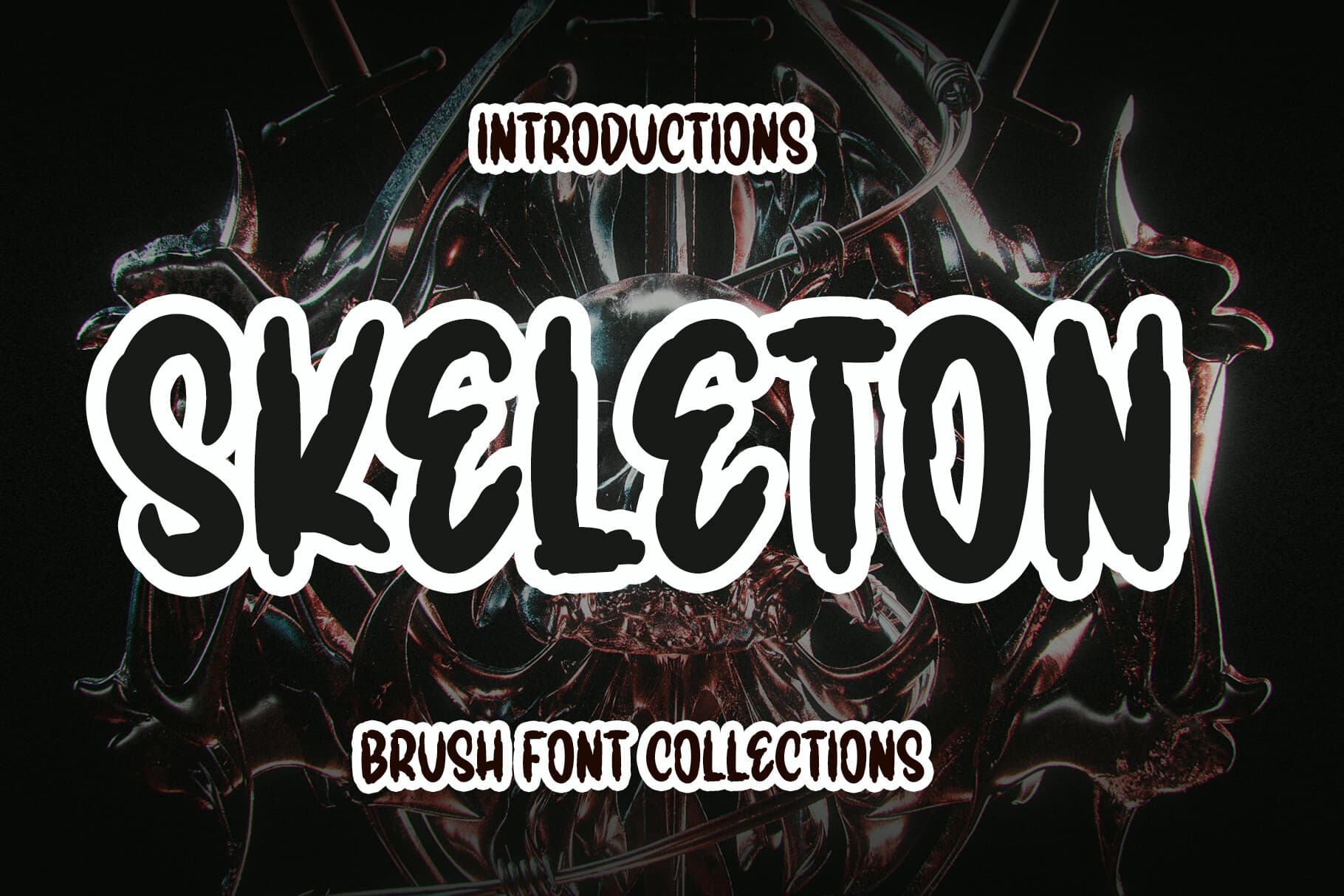
Unleashing Creativity with the Skeleton Font Are you looking to add a playful touch to your designs? Look no further than the Skeleton font—an energetic and quirky display typeface that embodies joy and whimsy. Perfect for children's themed projects,...